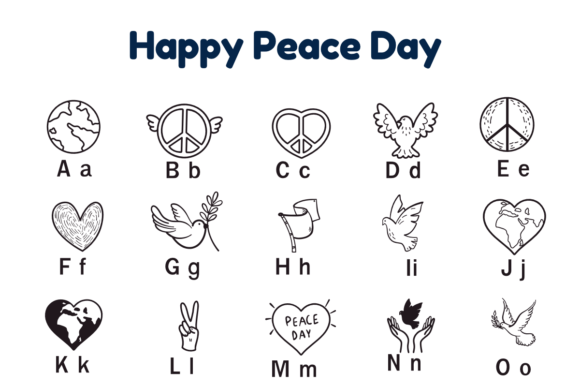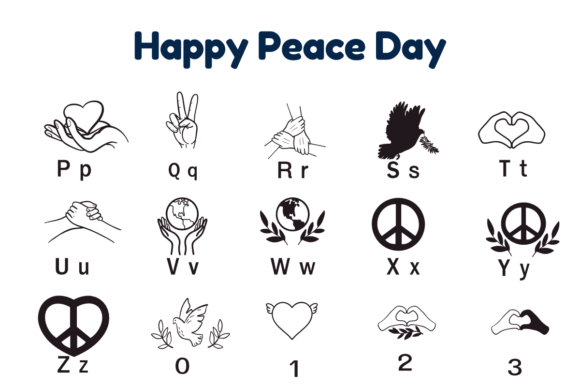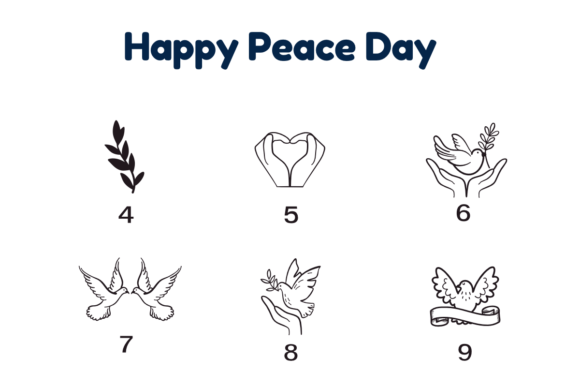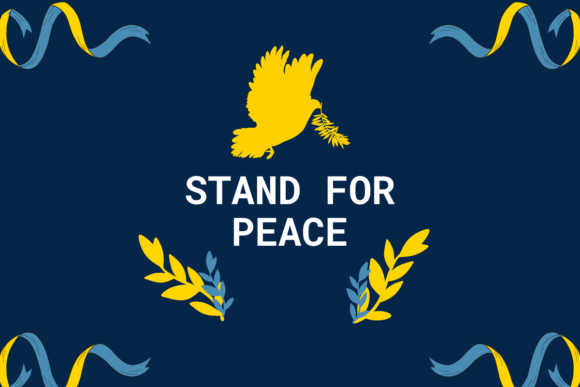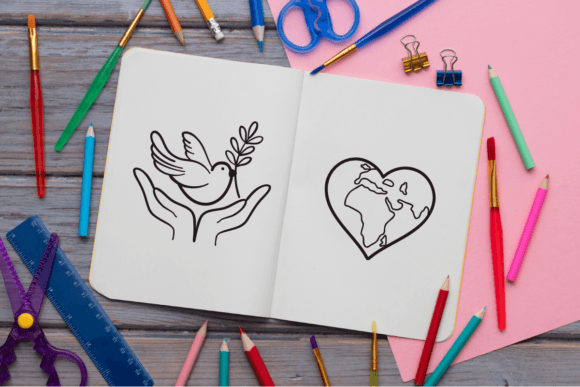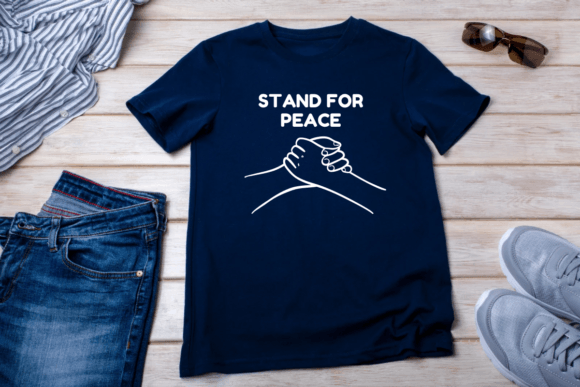
Introducing Happy Peace Day Font: A Sketched Dingbats Font for Creative Projects
Are you a designer, crafter, or DIY enthusiast looking for a unique and creative font to enhance your projects? Look no further than the Happy Peace Day Font, a beautiful dingbats font with a sketched theme. This versatile font is perfect for a wide range of creative projects, from wedding invitations and decorations to logos and crafts.
What is Happy Peace Day Font?
Happy Peace Day Font is a dingbats font, which means it’s a type of font that features symbols, icons, and illustrations rather than traditional letters and numbers. This font is designed with a sketched theme, giving it a charming, hand-drawn feel that’s perfect for adding a personal touch to your projects.
Features of Happy Peace Day Font
So, what makes Happy Peace Day Font so special? Here are just a few of its key features:
- Sketched theme: The font features a beautiful, hand-drawn design that’s perfect for adding a personal touch to your projects.
- Dingbats symbols: The font includes a wide range of dingbats symbols, including peace signs, hearts, stars, and more.
- Versatile: Happy Peace Day Font can be used for a wide range of creative projects, from wedding invitations and decorations to logos and crafts.
Uses for Happy Peace Day Font
So, what can you use Happy Peace Day Font for? The possibilities are endless! Here are just a few ideas to get you started:
- Wedding invitations: Add a personal touch to your wedding invitations with this beautiful, hand-drawn font.
- DIY projects: Use Happy Peace Day Font to add a creative touch to your DIY projects, such as decorations, signs, and crafts.
- Logos: Create a unique and memorable logo for your business or brand with this versatile font.
- Crafts: Add a personal touch to your crafts, such as scrapbooking, card making, and other paper crafts.
- Decorations: Use Happy Peace Day Font to create beautiful decorations, such as banners, garlands, and other decorative items.
Tips for Using Happy Peace Day Font
Here are a few tips for getting the most out of Happy Peace Day Font:
- Experiment with different sizes: Try out different font sizes to see what works best for your project.
- Combine with other fonts: Combine Happy Peace Day Font with other fonts to create a unique and interesting look.
- Use with images: Use the font with images or illustrations to add an extra layer of meaning and interest.
- Be creative: Don’t be afraid to think outside the box and try new and creative things with Happy Peace Day Font.
In conclusion, Happy Peace Day Font is a beautiful and versatile dingbats font that’s perfect for designers, crafters, and DIY enthusiasts. With its sketched theme and wide range of symbols, this font can add a personal touch to a wide range of creative projects. Whether you’re looking to create wedding invitations, decorations, logos, or crafts, Happy Peace Day Font is a great choice. So why not give it a try and see what creative possibilities you can come up with?